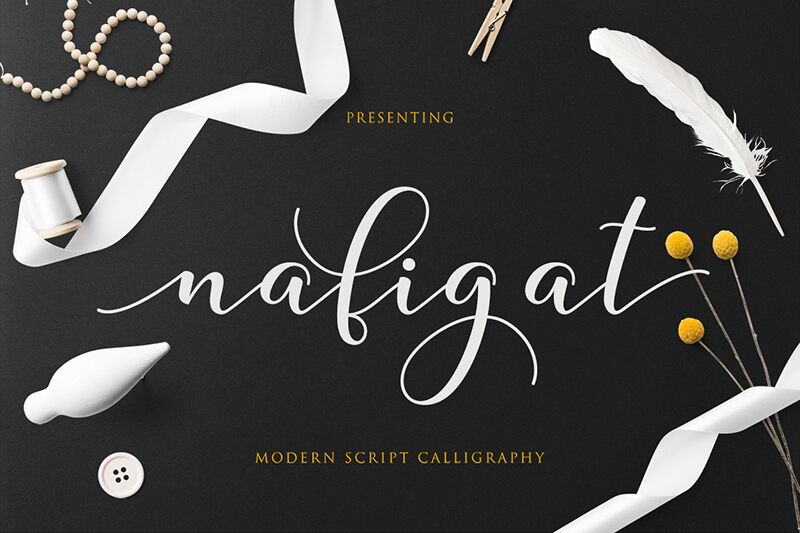
NafigatScript
Nafigat Script is a captivating calligraphic font that effortlessly blends elegance and fluidity. Designed by Teuku Bahraini, this script-inspired typeface exudes a sense of refined sophistication, with its graceful strokes and organic flow.
The font's distinctive character lies in its seamless ligatures, creating a harmonious and visually striking composition. Nafigat Script's versatility makes it an ideal choice for a wide range of design applications, from high-end branding and editorial layouts to sophisticated invitations and announcements.
Its timeless appeal and versatility ensure that Nafigat Script will leave a lasting impression in any creative project.